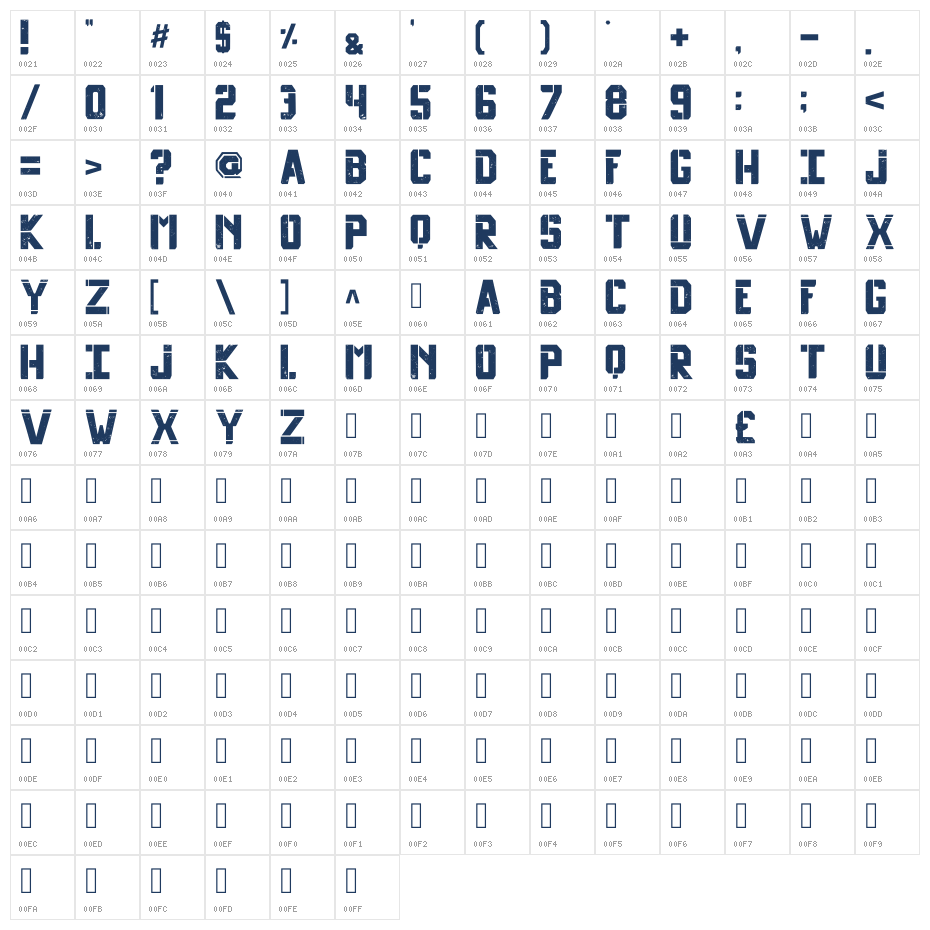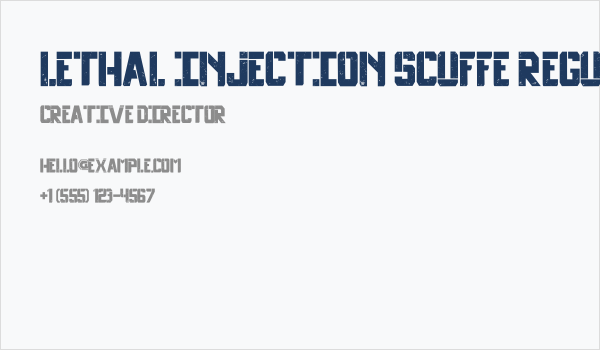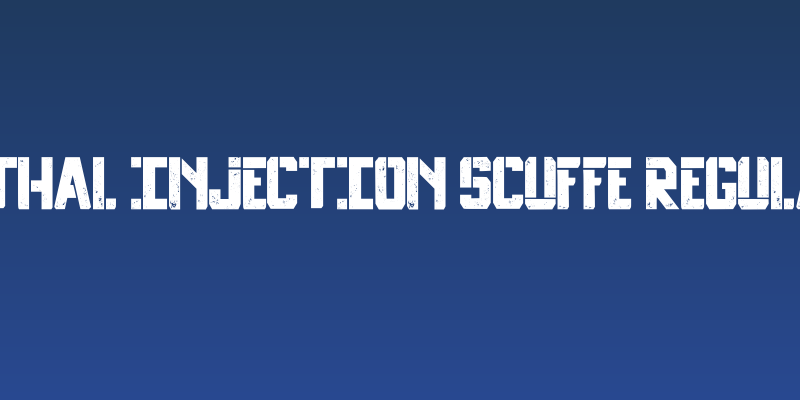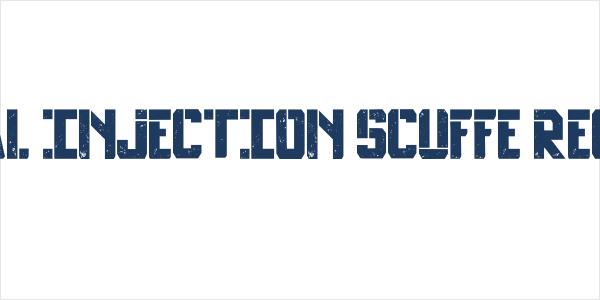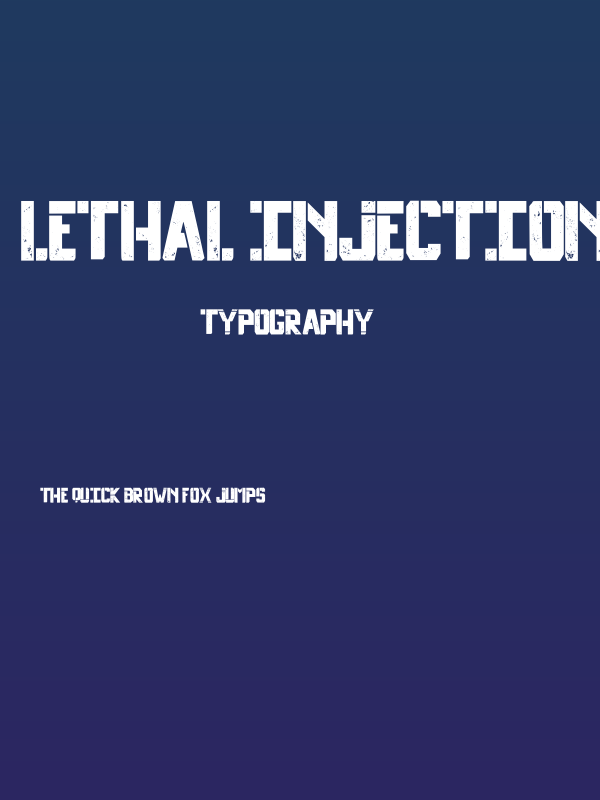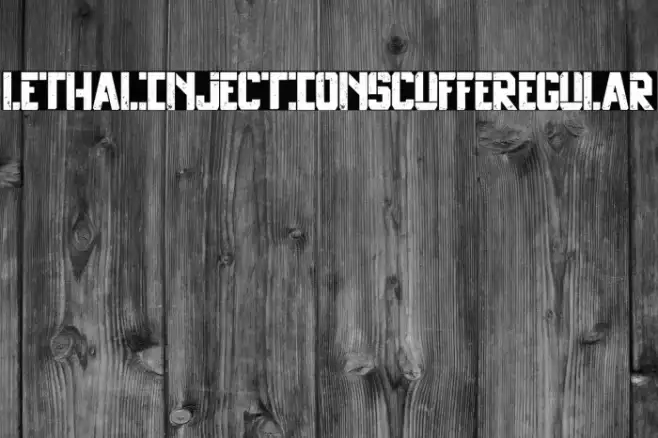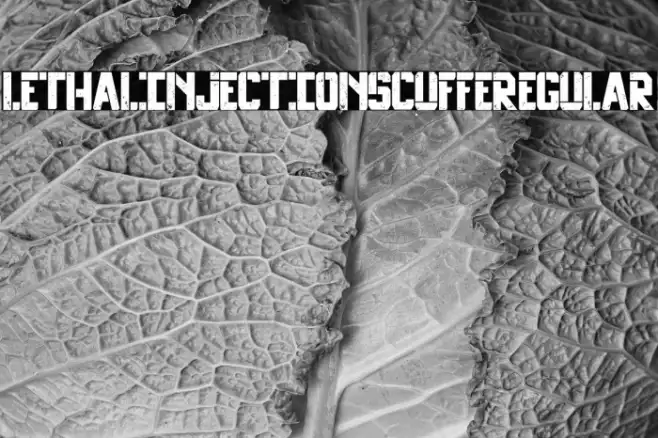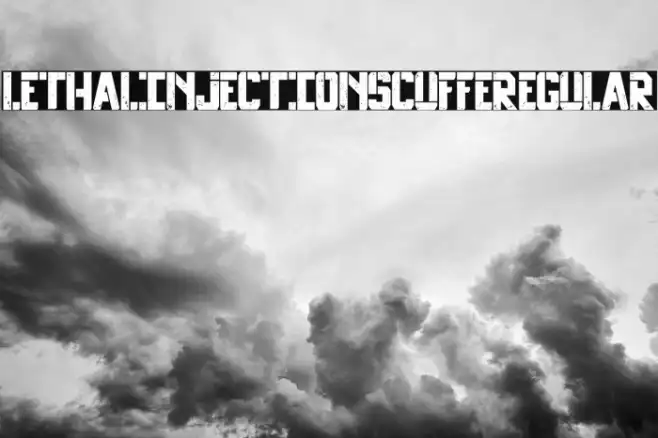
Lethal Injection Scuffe Regular Font
Lethal Injection Scuffe Regular Description
A bold, distressed, stencil-style font with a rugged, worn appearance, featuring uppercase and lowercase letters, numbers, and special characters.
| Name | Lethal Injection Scuffe Regular |
| Font Family | Lethal Injection Scuffed |
| Overall Style | Vintage, Industrial, Rugged |
| Use Case | Headlines, Posters, Logos, Packaging |
| Author | Fonts by TypeSETit |